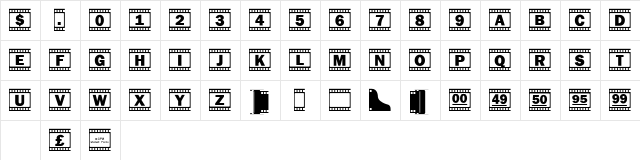
FilmStrip Regular
Design Context for FilmStrip Typeface
FilmStrip is a composed and adaptable typeface that performs quietly and consistently across a wide range of design contexts.